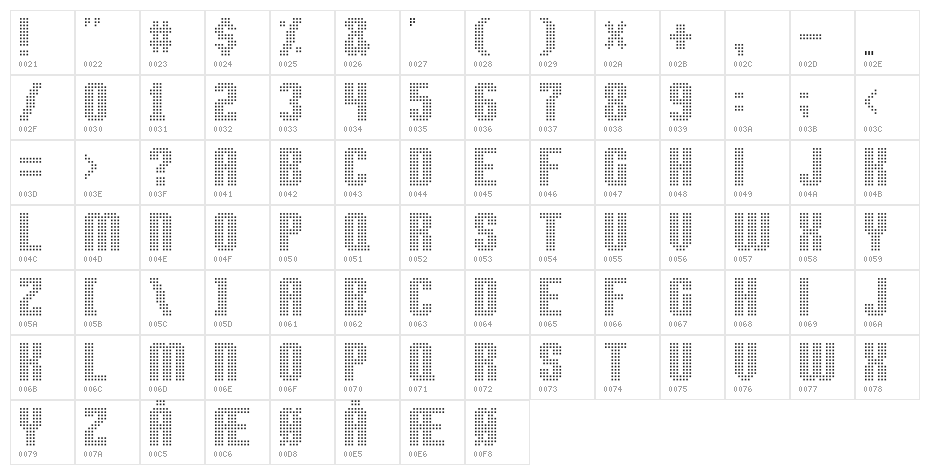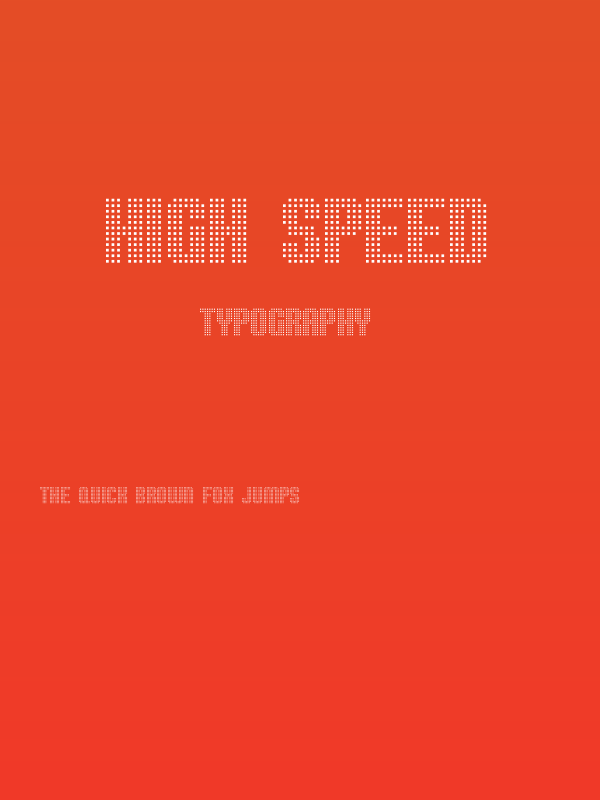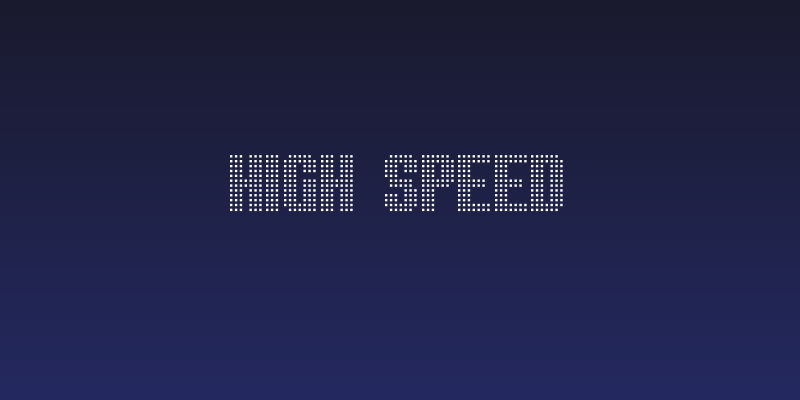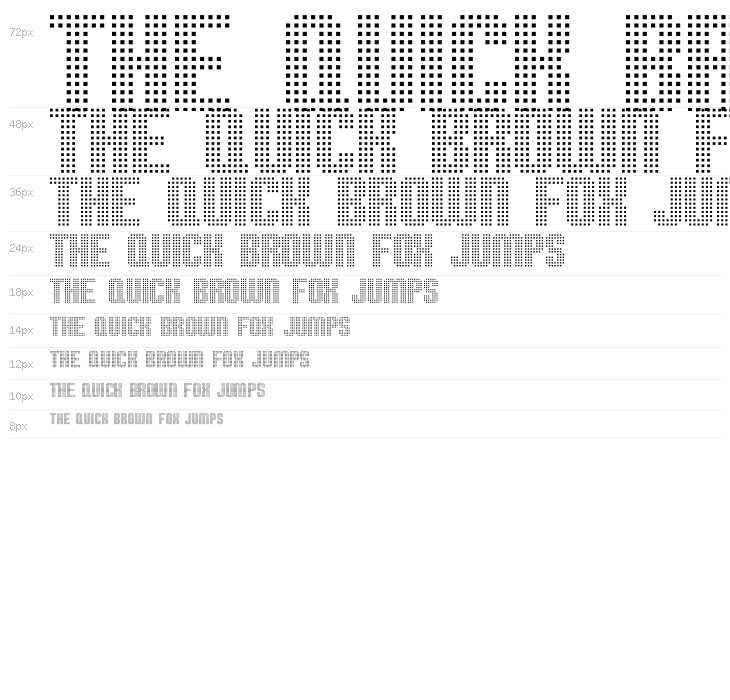
High speed Font
High speed Description
This font features a unique dot matrix design, reminiscent of digital displays and retro technology. Each character is composed of a grid of small, evenly spaced dots, creating a pixelated effect that is both modern and nostalgic. The uniformity of the dots gives the font a structured and mechanical appearance, while the rounded edges of the dots add a touch of softness. This style is particularly effective in conveying a sense of technology, innovation, and digital aesthetics. The font maintains a consistent height and width across all characters, ensuring readability and a cohesive look.
| Proposed Projects | Ideal for digital displays, tech-themed designs, retro video games, and futuristic branding. |